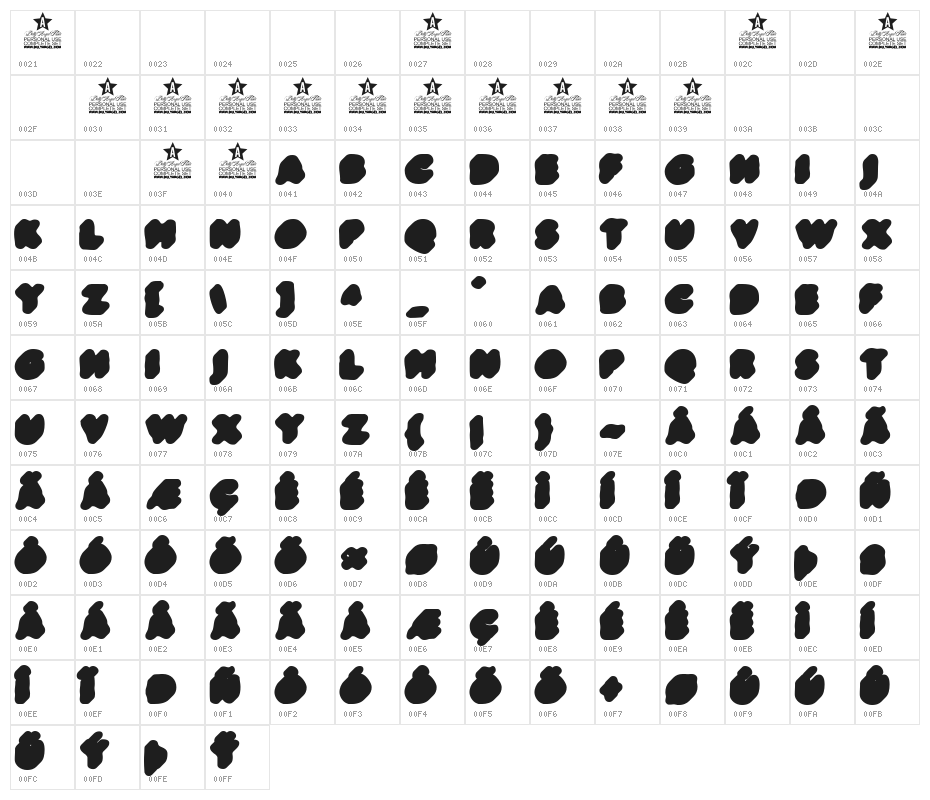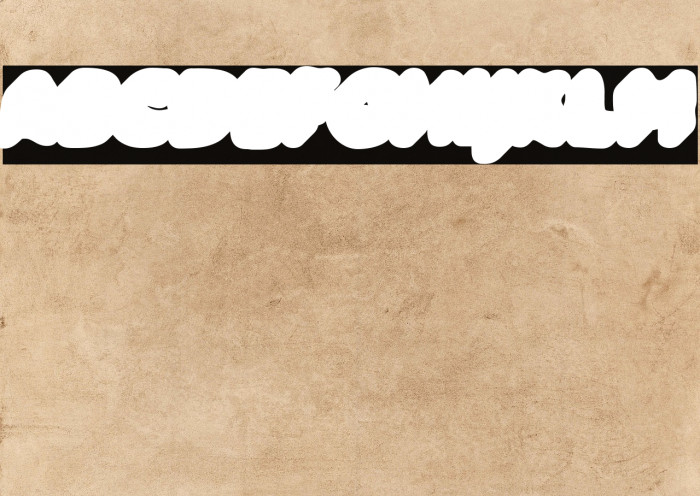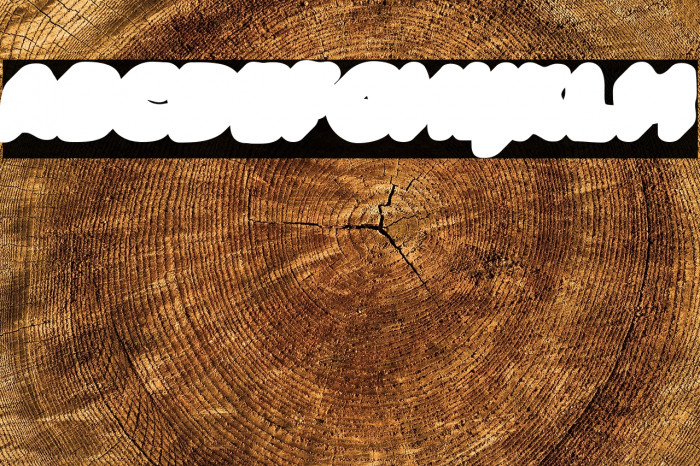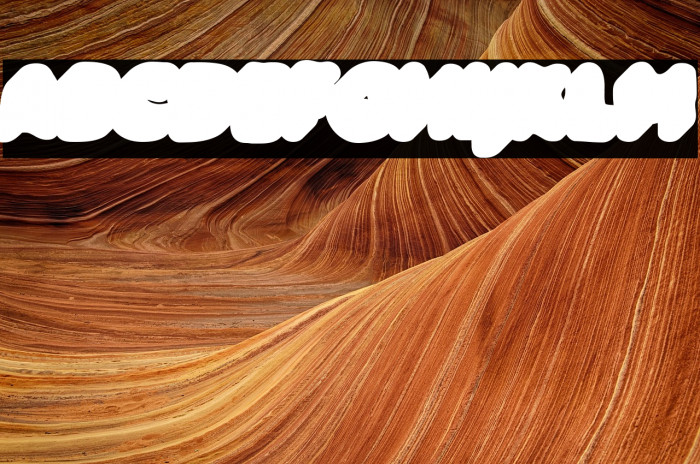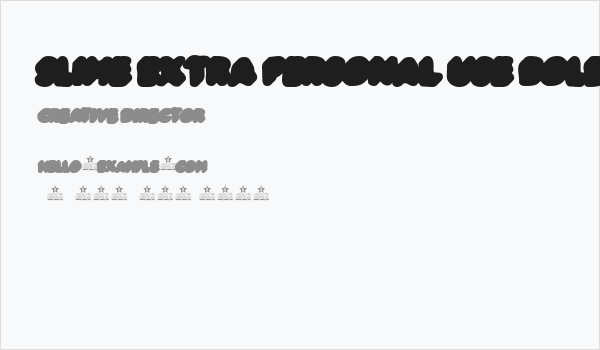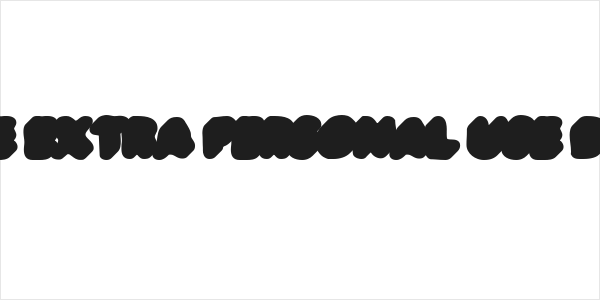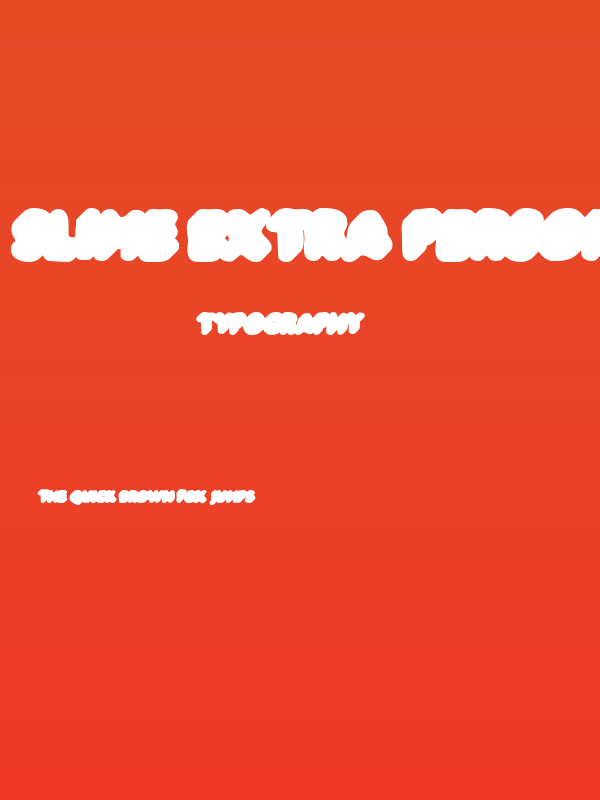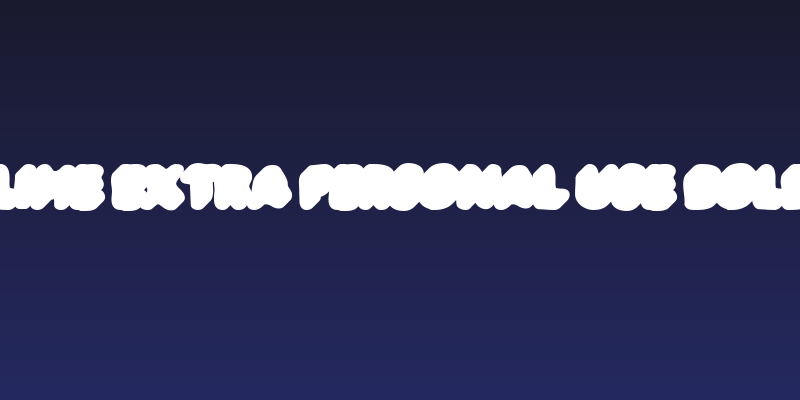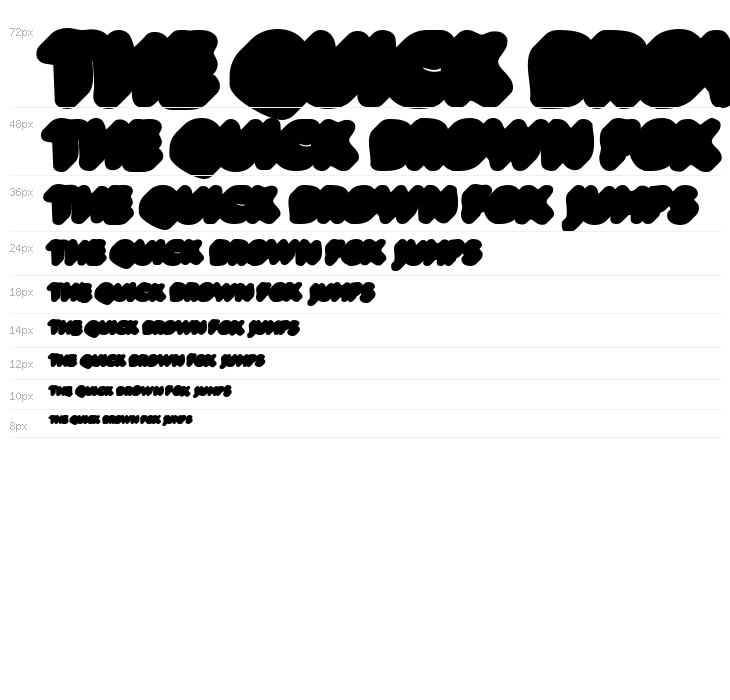
SLIME EXTRA PERSONAL USE Bold Font
SLIME EXTRA PERSONAL USE Bold Description
This font features a bold, playful style with thick, rounded characters that create a sense of fun and whimsy. The letters are heavily weighted, giving them a strong presence, while the rounded edges soften the overall look. The design is reminiscent of bubble letters, making it ideal for projects that require a youthful or informal touch. The characters are closely spaced, enhancing the compact and cohesive appearance of the text. This font is particularly suitable for creative and artistic applications where a bold statement is desired.
| Proposed Projects | Ideal for children's book covers, playful branding, posters, and party invitations. |